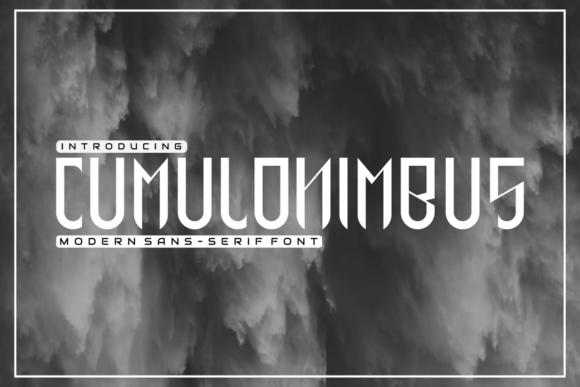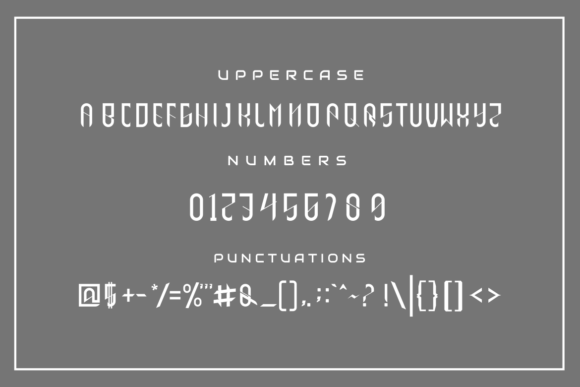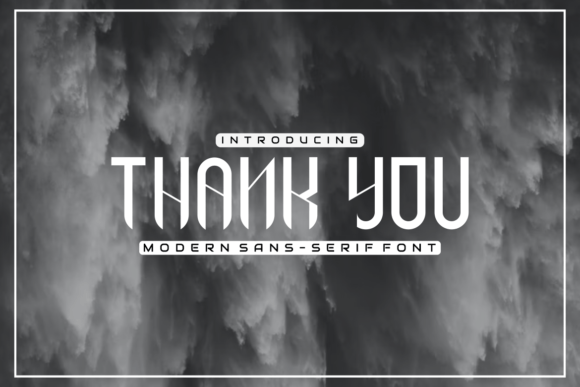
Cumulonimbus Font: Elevate Your Designs with a Modern Blackletter Font
In the world of typography, a good font can make all the difference in the success of a design project. For designers and crafters looking for a modern and trendy blackletter font with a cool techno vibe, Cumulonimbus is an excellent choice. This versatile font has the potential to elevate any creation, regardless of the topic or industry. In this article, we’ll take a closer look at Cumulonimbus and explore its features, benefits, and uses.
What is Cumulonimbus Font?
Cumulonimbus is a modern blackletter font designed to add a touch of edginess and sophistication to any design project. Its unique blend of traditional blackletter elements and modern techno flair makes it a standout in the world of typography. The font’s sleek lines, bold shapes, and intricate details create a visually striking effect that’s sure to grab attention.
Key Features of Cumulonimbus Font
- Modern and trendy design: Cumulonimbus boasts a fresh and contemporary look that’s perfect for designers looking to create unique and stylish designs.
- Cool techno vibe: The font’s techno-inspired elements give it a cutting-edge feel that’s ideal for projects that require a bold and futuristic look.
- High versatility: Cumulonimbus can be used for a wide range of design projects, from logos and branding to posters, flyers, and digital media.
- Easy to read: Despite its intricate details, Cumulonimbus is surprisingly easy to read, making it a great choice for body text and headlines.
Benefits of Using Cumulonimbus Font
So why choose Cumulonimbus over other fonts? Here are just a few benefits of using this versatile blackletter font:
- Elevate your designs: Cumulonimbus has the power to instantly elevate your designs, adding a touch of sophistication and style to any project.
- Stand out from the crowd: With its unique design and techno vibe, Cumulonimbus can help your designs stand out in a crowded market.
- Perfect for creative projects: Whether you’re working on a logo, poster, or digital media project, Cumulonimbus is an excellent choice for creative and artistic endeavors.
Uses of Cumulonimbus Font
Cumulonimbus is an incredibly versatile font that can be used for a wide range of design projects, including:
- Logo design: Create a bold and memorable logo with Cumulonimbus, perfect for businesses and brands looking to make a statement.
- Posters and flyers: Use Cumulonimbus to create eye-catching posters and flyers that grab attention and convey your message.
- Digital media: Cumulonimbus is perfect for digital media projects, such as social media graphics, website headers, and email newsletters.
- Branding and advertising: Use Cumulonimbus to create cohesive branding and advertising campaigns that showcase your unique style and personality.
Tips for Using Cumulonimbus Font
To get the most out of Cumulonimbus, here are a few tips to keep in mind:
- Experiment with different sizes: Cumulonimbus looks great in a variety of sizes, from small body text to large headlines.
- Pair with complementary fonts: Try pairing Cumulonimbus with other fonts to create a unique and visually appealing combination.
- Use it sparingly: While Cumulonimbus is a beautiful font, it’s best used sparingly to avoid overwhelming the reader.
In conclusion, Cumulonimbus is a modern and trendy blackletter font that’s perfect for designers and crafters looking to elevate their designs. With its unique blend of traditional and techno elements, this font has the potential to add a touch of sophistication and style to any project. Whether you’re working on a logo, poster, or digital media project, Cumulonimbus is an excellent choice. So why not give it a try and see how it can take your designs to the next level?